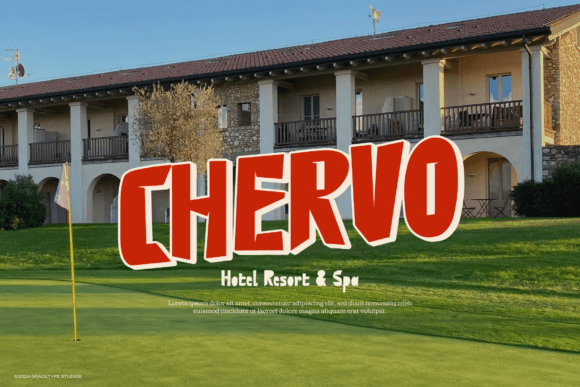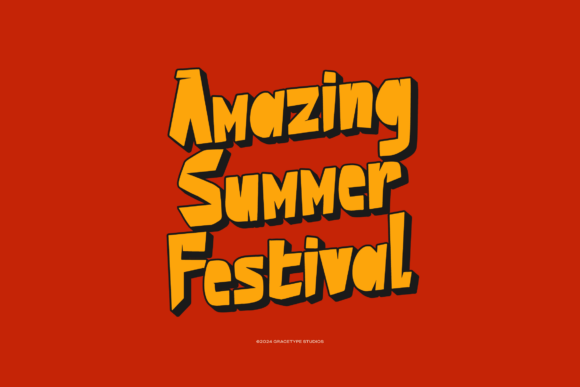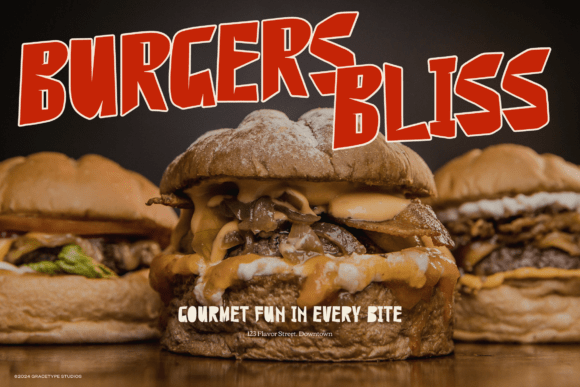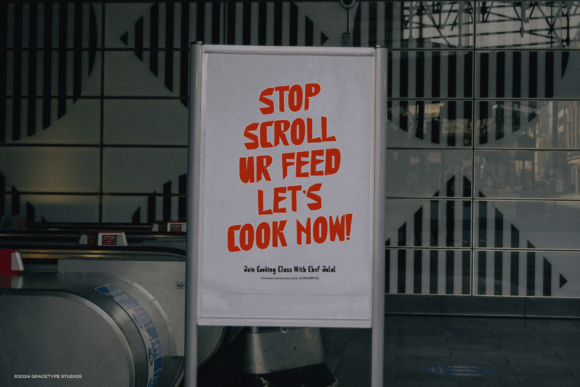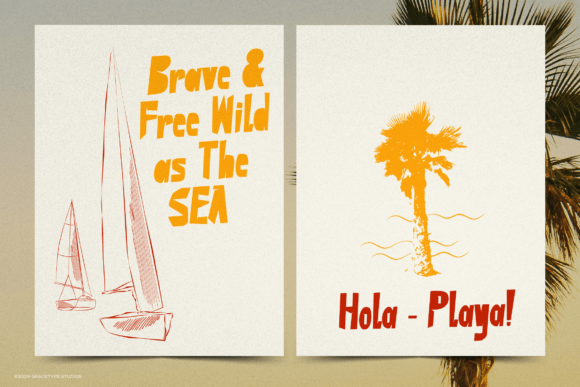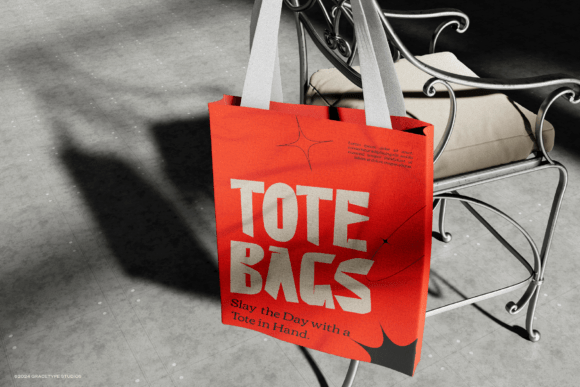
Introduction to Imperfect Cut Font
Have you ever stared at a blank page, trying to come up with the perfect design for a project, only to be met with a blank stare of your own? That’s when I turn to my trusty design resources – the ones that add a little extra oomph to my creative projects. One of my go-to fonts is the Imperfect Cut Font, a bold and playful cutout-style handwritten font that never fails to inject some personality into my designs.
Whether you’re working on a poster, a headline, or a brand identity, the Imperfect Cut Font is a game-changer. Its uneven edges and dynamic shapes give it a handcrafted feel that’s impossible to replicate with more traditional fonts. And the best part? It’s a high-quality design resource that’s available for free download, complete with a transparent background for easy integration into your designs.
Key Features of Imperfect Cut Font
- High-quality design: Imperfect Cut Font is a meticulously crafted font that offers a unique and creative touch to any project.
- Unique characteristics: Imperfect Cut Font features a distinctive, hand-crafted look that adds a touch of personality to any creative project.
- OpenType features: The font includes OpenType features, such as ligatures and swashes, which can be used to add an extra layer of sophistication to designs.
Honest Review: Imperfect Cut Font
As a designer, I’m always on the lookout for unique and high-quality design resources to elevate my creative projects. I recently stumbled upon the Imperfect Cut Font, a free download that’s been making waves in the design community.
- ✨ The Imperfect Cut Font boasts a high-quality, hand-drawn aesthetic that adds a touch of personality to any design.
- ✨ The font is incredibly versatile, suitable for a wide range of creative projects, from branding and advertising to editorial and packaging design.
- ⚠️ The font is quite bold, so it may not be suitable for all design applications where subtlety is key.
Overall, the Imperfect Cut Font is a fantastic addition to any designer’s toolkit. Its unique aesthetic and high-quality design make it a standout resource for creative projects. Just be sure to check the licensing terms and use it judiciously to get the most out of this design gem.